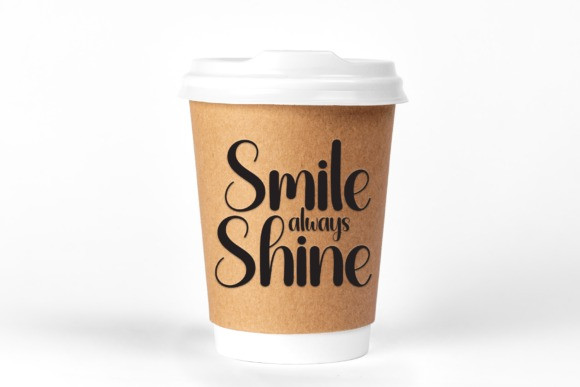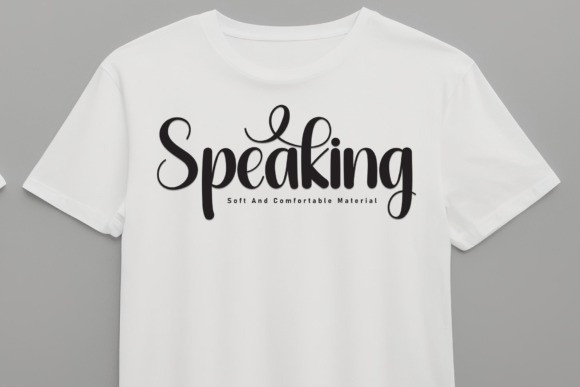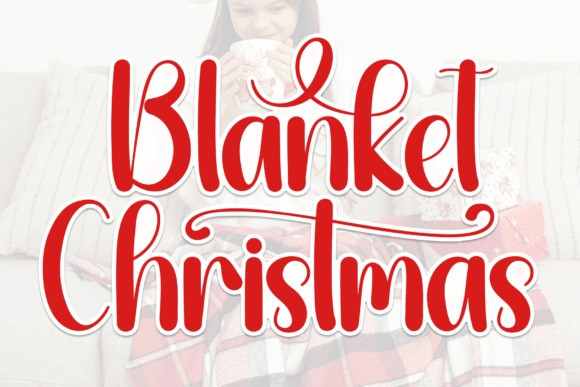
Blanket Christmas Font
Blanket Christmas Font is an enchanting handwritten font. This versatile script font has a wide spectrum of applications ranging from greeting cards to headlines and is guaranteed to add a romantic feel to your next project.